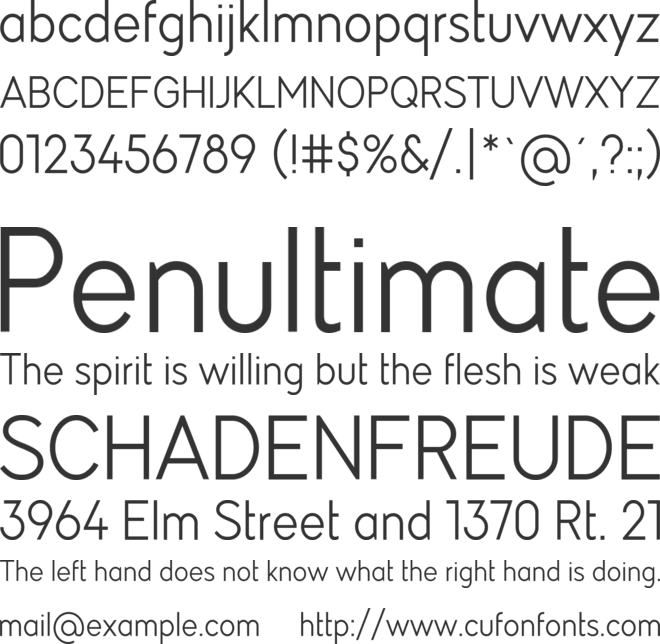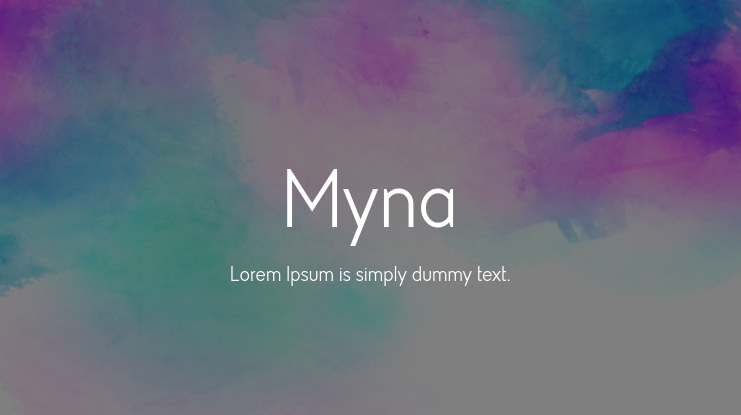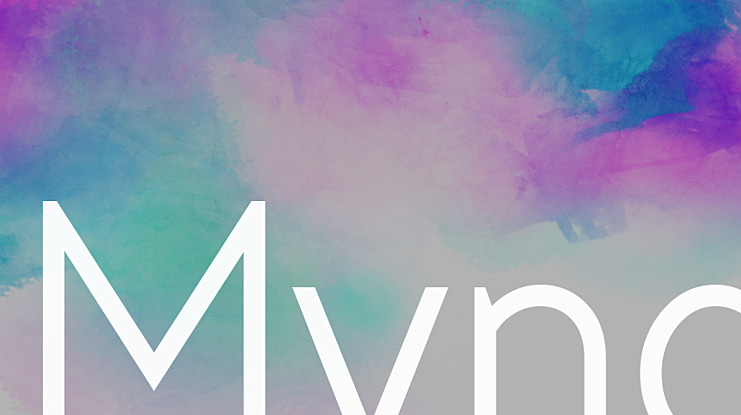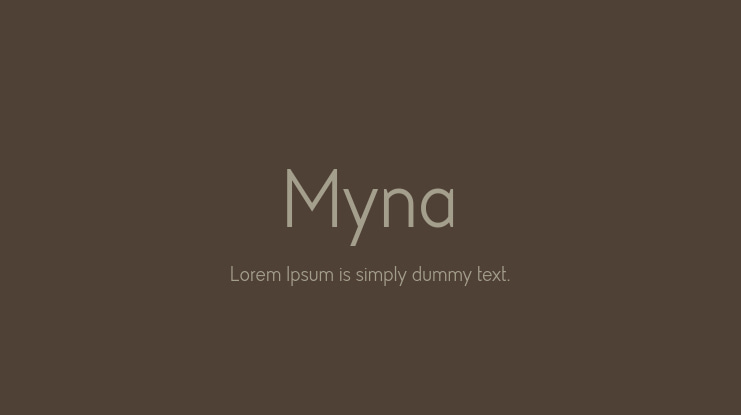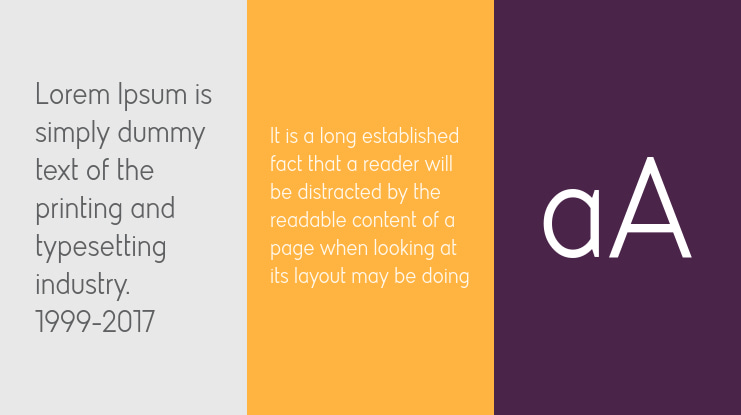
Myna Font Family
It’s a semi-condensed sans serif font that has a strong and subtle character. But is also suitable for any other purpose, such as brand design or editorial design, or any other use case that require clean and elegant geometric sans font.
It contains 54 styles, divided into Condensed, Regular and Expanded weight, with 18 styles in each (9 upright, and 9 italic styles), ranging from Thin to Black styles, and are all available in one variable font.